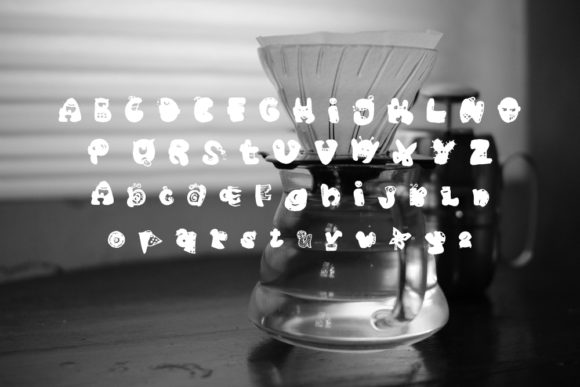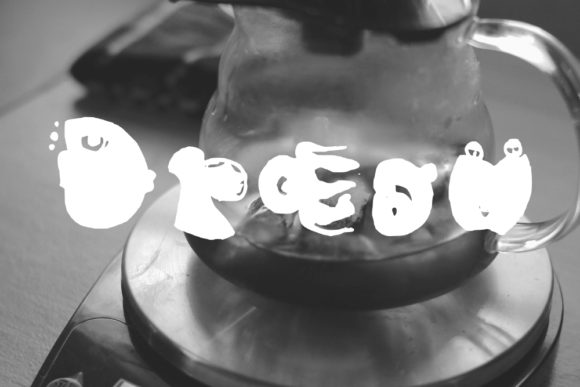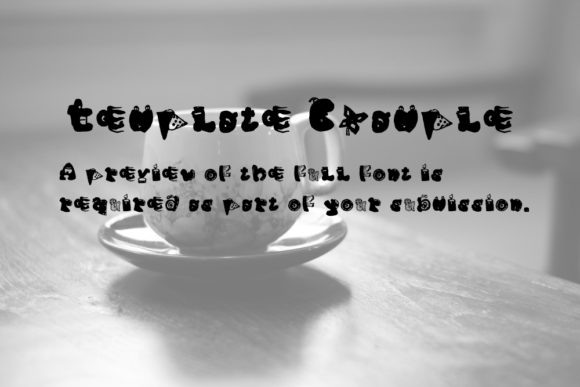
Introduction to Remidial Monster Font
Remidial Monster is an incredibly interesting and unique dingbats font.
Its distinct look makes this font fit for a wide pool of contexts .
Key Features of Remidial Monster Font